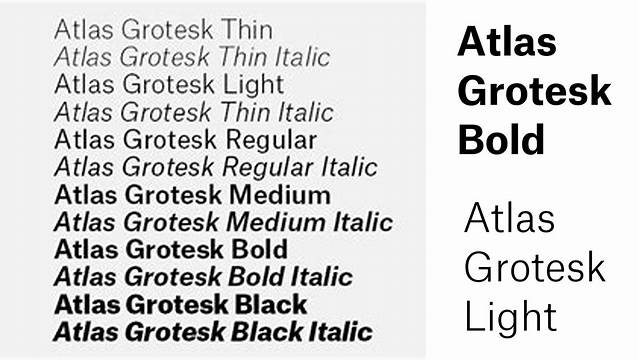
Hey guys! Are you looking to give your designs a fresh, modern look? Then you're in the right place! Today, we're diving deep into the Atlas Grotesk font family, a super versatile typeface that’s been making waves in the design world. And guess what? We're going to explore how you can get your hands on it for free. So, buckle up and let’s get started!
1. What is Atlas Grotesk Font Family?
Let’s kick things off by understanding what makes Atlas Grotesk so special. This font family is a contemporary sans-serif typeface known for its clean lines, balanced proportions, and overall legibility. It's designed with a modern aesthetic in mind, making it perfect for a wide range of applications, from branding and advertising to web design and editorial projects. The font exudes a sense of clarity and sophistication, which makes it a favorite among designers who want to convey a message with precision and style. But what exactly makes it stand out from the crowd? Is it the variety of weights, the subtle nuances in its letterforms, or perhaps its adaptability across different mediums? We'll break down all these aspects and more, helping you understand why Atlas Grotesk might be the perfect choice for your next project. By the end of this section, you'll have a solid understanding of what Atlas Grotesk is and why it’s so highly regarded in the design community.
2. Key Features of Atlas Grotesk
What are the defining characteristics of Atlas Grotesk? Well, this font family boasts several key features that make it a standout choice for designers. First off, its clean and geometric design gives it a modern, minimalist feel. Think sharp, crisp lines and a no-nonsense approach to typography. Second, Atlas Grotesk offers excellent readability, making it suitable for both display and body text. Whether you’re designing a website, a poster, or a magazine, this font ensures your message is easily understood. Third, the font family typically includes a variety of weights, from light to bold, giving you plenty of options to play with in your designs. This versatility allows you to create visual hierarchy and add emphasis where needed. But beyond these basics, there are other subtle nuances that contribute to the font's overall appeal. For example, the spacing between letters (kerning) and the shape of specific characters have been carefully considered to ensure a harmonious and balanced look. In this section, we’ll delve deeper into these features, providing examples and insights into how they can enhance your design work. So, let's explore the details that make Atlas Grotesk a truly exceptional font.
3. Atlas Grotesk Font Weights and Styles
One of the things that makes Atlas Grotesk so versatile is its range of weights and styles. Typically, you'll find this font family in weights ranging from Extra Light to Black, giving you a full spectrum of options to work with. The Light and Extra Light weights are perfect for adding a touch of elegance and sophistication, while the Bold and Black weights are ideal for making a strong statement. In addition to the standard weights, Atlas Grotesk often includes italic versions, which add a touch of flair and can be used to create contrast within your text. But why is this variety so important? Having multiple weights and styles at your disposal means you can create a clear visual hierarchy in your designs, guiding the reader's eye and emphasizing key information. For example, you might use a bold weight for headlines and a lighter weight for body text. Or, you could use italics to highlight specific words or phrases. In this section, we'll take a closer look at each weight and style, providing examples of how they can be used effectively. By understanding the nuances of each option, you'll be able to leverage the full potential of Atlas Grotesk in your projects.
4. Atlas Grotesk in Branding
When it comes to branding, typography plays a crucial role in shaping a brand's identity. Atlas Grotesk, with its clean and modern aesthetic, can be an excellent choice for brands that want to convey a sense of clarity, sophistication, and trustworthiness. Think about it: the fonts you use in your logo, website, and marketing materials communicate a lot about your brand's personality. Atlas Grotesk’s geometric forms and balanced proportions make it a versatile option that can work for a wide range of industries, from tech startups to financial institutions. But how exactly can you use Atlas Grotesk in your branding efforts? One common approach is to use it for your logo, creating a visual identity that is both modern and timeless. Another is to use it for your website's headlines and body text, ensuring a consistent and readable experience for your visitors. In this section, we'll explore real-world examples of brands that have successfully used Atlas Grotesk, and we'll discuss best practices for incorporating it into your own branding strategy. Whether you're creating a new brand identity or refreshing an existing one, Atlas Grotesk can help you make a lasting impression.
5. Atlas Grotesk for Web Design
In the world of web design, readability is king. A website can have stunning visuals and engaging content, but if the typography is poor, visitors are likely to bounce. This is where Atlas Grotesk shines. Its clean, geometric design and excellent legibility make it a top choice for web designers. Whether you're crafting headlines, body text, or navigation menus, Atlas Grotesk ensures your message is easily read and understood across various screen sizes and devices. But beyond readability, Atlas Grotesk also brings a modern and sophisticated aesthetic to your website. Its neutral yet stylish appearance can complement a wide range of design styles, from minimalist layouts to more complex compositions. In this section, we'll delve into the specifics of using Atlas Grotesk on the web. We'll discuss how to optimize it for different browsers and devices, and we'll explore best practices for pairing it with other fonts. We'll also look at examples of websites that are using Atlas Grotesk effectively, providing inspiration and practical tips for your own projects. So, if you're looking to elevate your web typography, Atlas Grotesk might just be the font you've been searching for.
6. Using Atlas Grotesk in Print
While Atlas Grotesk is a fantastic choice for digital design, it also excels in print. Its clean lines and balanced proportions translate beautifully to the printed page, making it a versatile option for a wide range of print projects. Think about it: from brochures and posters to magazines and books, typography plays a vital role in how your message is received. Atlas Grotesk's excellent legibility ensures that your text is easy to read, even in smaller sizes. Its range of weights and styles allows you to create visual hierarchy and add emphasis where needed. But what are some specific ways you can use Atlas Grotesk in print? It's ideal for headlines, subheadings, and body text, providing a consistent and professional look throughout your document. You can also use it for captions, labels, and other supporting text elements. In this section, we'll explore the nuances of using Atlas Grotesk in print, discussing topics such as choosing the right weight for different applications, optimizing for print resolution, and pairing it with other fonts. We'll also look at examples of print designs that have successfully incorporated Atlas Grotesk, providing inspiration for your own projects. So, whether you're designing a business card or a multi-page brochure, Atlas Grotesk can help you achieve a polished and professional result.
7. Pairing Atlas Grotesk with Other Fonts
One of the keys to effective typography is choosing fonts that work well together. While Atlas Grotesk is a versatile font that can stand on its own, pairing it with other typefaces can add depth and visual interest to your designs. But how do you choose the right fonts to pair with Atlas Grotesk? A good starting point is to consider contrast. Since Atlas Grotesk is a clean, sans-serif font, you might want to pair it with a serif font for a more traditional and balanced look. Alternatively, you could pair it with another sans-serif font that has a different personality or weight. For example, you might pair Atlas Grotesk with a slightly more decorative or expressive sans-serif to create a contrast in styles. Or, you could pair it with a lighter or bolder sans-serif to create a contrast in weight. In this section, we'll explore some specific font pairings that work well with Atlas Grotesk, providing examples and rationale behind each choice. We'll discuss the principles of font pairing, such as considering contrast, harmony, and readability. We'll also look at examples of designs that have successfully paired Atlas Grotesk with other fonts, providing inspiration for your own projects. So, whether you're a typography novice or an experienced designer, this section will help you master the art of font pairing.